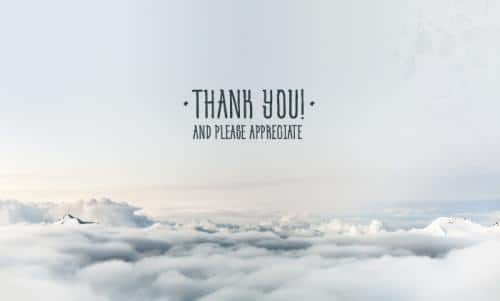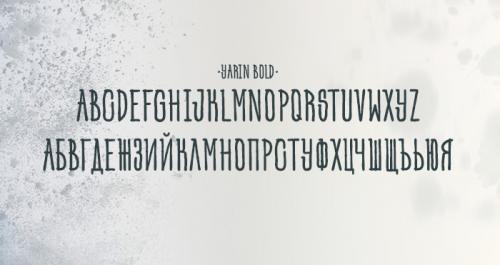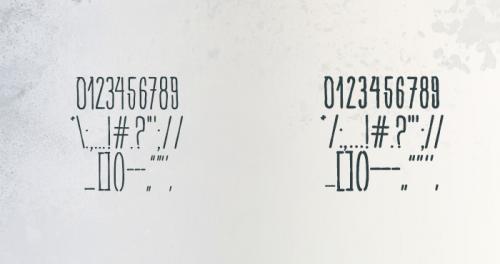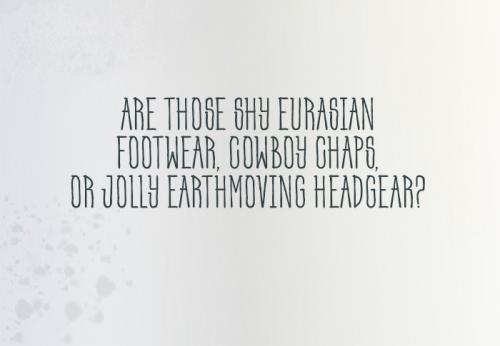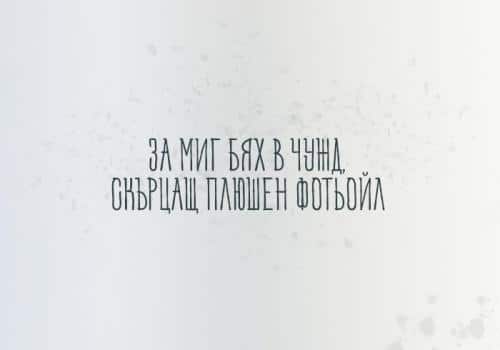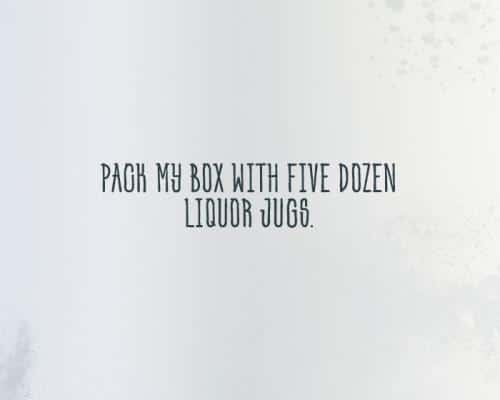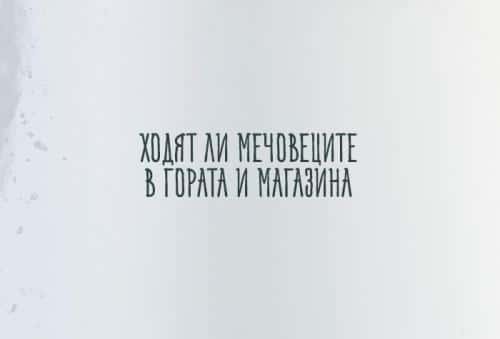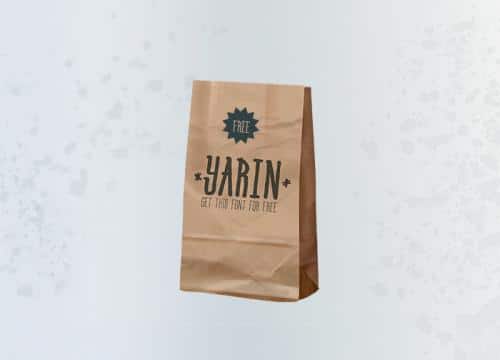
Yarin is a free font and inspired by the summer freedom. It looks like personal handwriting, and can be use for short, modern and fresh types, slogans and logo, presentations, branding and various other artistic ideas. You can enjoy Yarin in Cyrilic and Latin (+ Extended). The font also provides regular and bold.